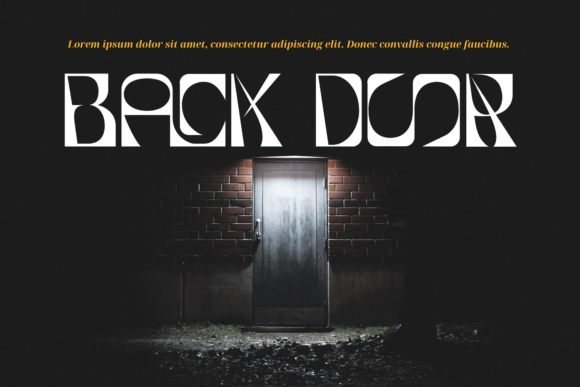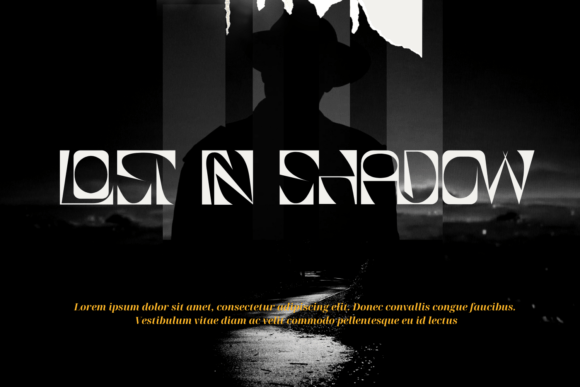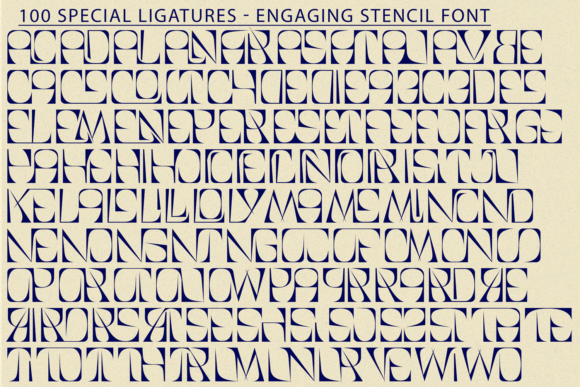
Introduction to Engaging Stencil Font
Engaging Stencil Font – a modern display font that blends contemporary style with a touch of elegance.
With tall sharp edge stroke, fun character with alternates To give you an extra creative work.
Key Features of Engaging Stencil Font